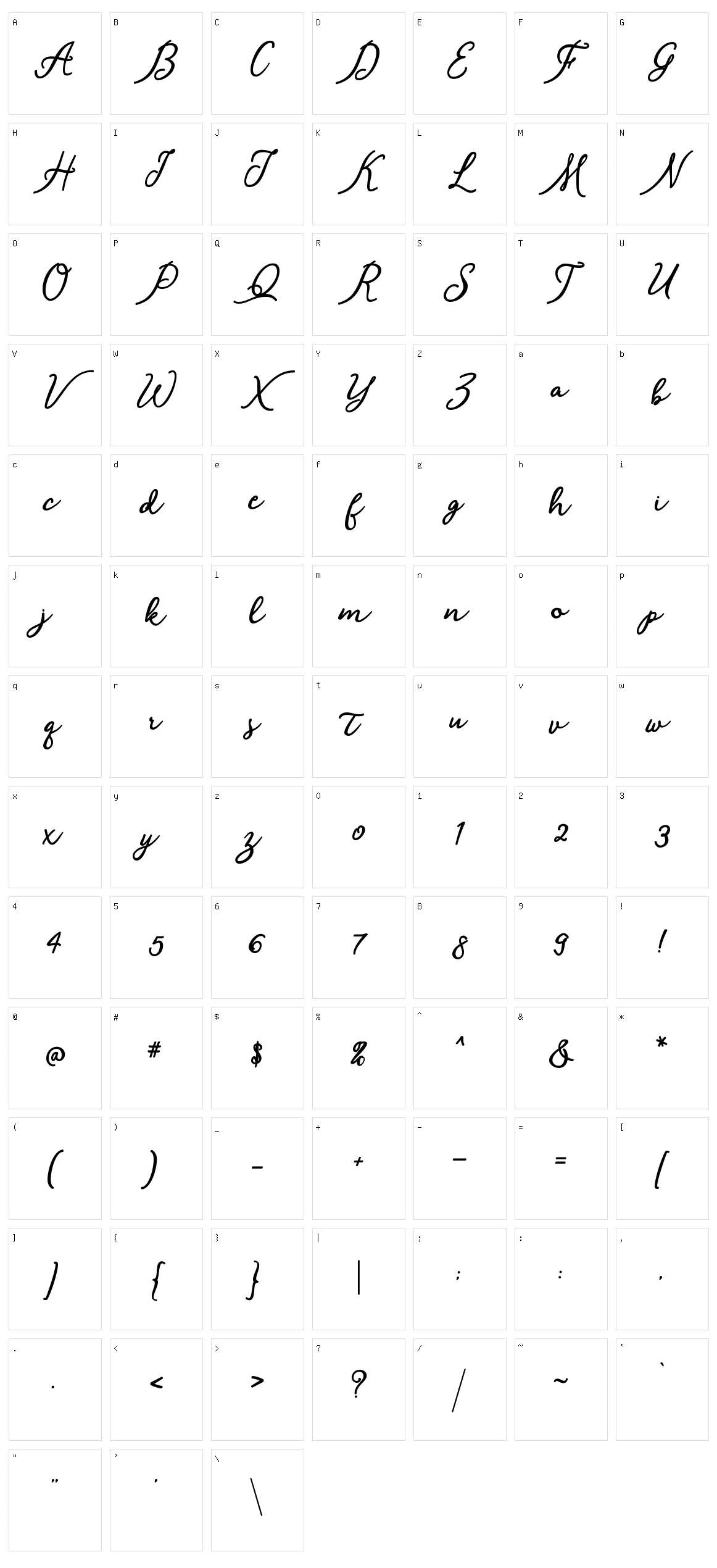
The free font Shantik is carefully designed by Donny Mark, showcasing a thoughtful balance of creativity and usability and falls under the Script font style. When you download the ZIP file, it contains only 223.56 KB of font files, making it lightweight and quick to download. Please review the license details below to understand permitted usage and distribution rights. If license information is not available, we recommend using this font for personal projects only or contacting the author directly for commercial usage permissions.